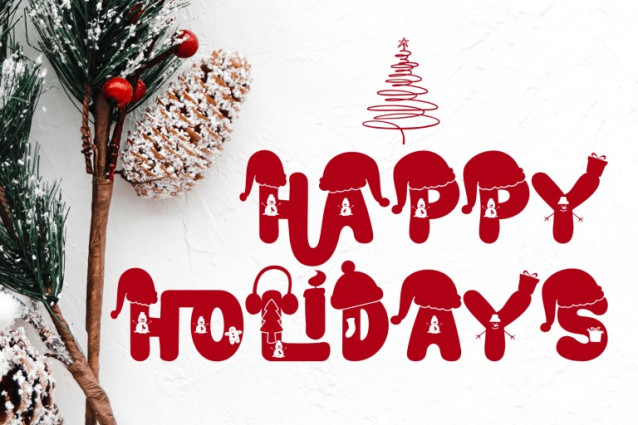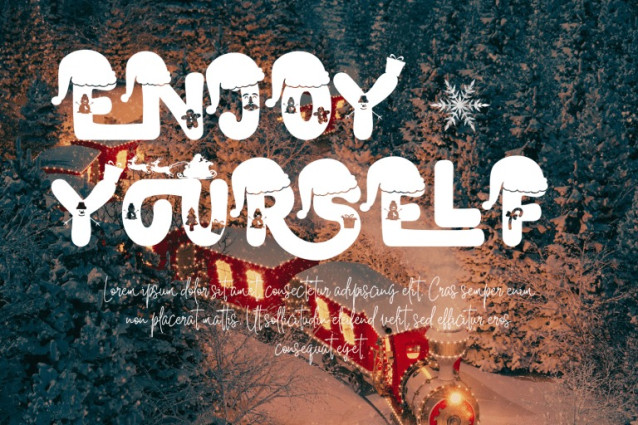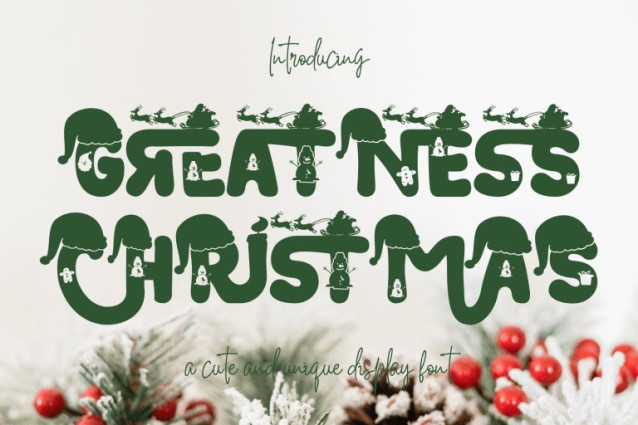
Greatness Christmas Font
Greatness Christmas – Playful Font – Playful Christmas Display Font, a playful and festive Christmas display font designed to bring joy, warmth, and holiday spirit into your designs. This font features bold, rounded letterforms with soft curves and a friendly silhouette, enhanced by charming Christmas-themed details such as Santa hats, snowmen, reindeer, and decorative ornaments integrated directly into the characters. The overall style feels fun, cozy, and whimsical, making it instantly recognizable and highly engaging for seasonal projects. Greatness Christmas is perfect for Christmas posters, greeting cards, gift packaging, holiday branding, kids designs, social media graphics, apparel, and festive advertising. Its strong shapes ensure excellent readability, while the decorative ligatures add personality and storytelling charm to every word.
🔤Features:
Uppercase Letters
Around 100 Special Ligatures & Alternates
Accented Characters for multilingual support
🔤About 100 ligatures combined with Stylistic Alternates Font:
AC AD AL AN AR AS AT AU AV BE CA CE CH CO CT DE DI EA EC ED EE EL EM EN EP ER ES ET FE FO FR GE HA HE HI HO IE IC IL IN IO IR IS IT JU KE LA LE LI LL LO LY MA ME MI NC ND NE NG NO NT NS OC OF OM ON OO OP OR OT OU OW PA PR RA RD RE RI RO RS RT SE SH SI SO SS ST TA TE TH TI TO TR TT UM UN UR VE WI WO